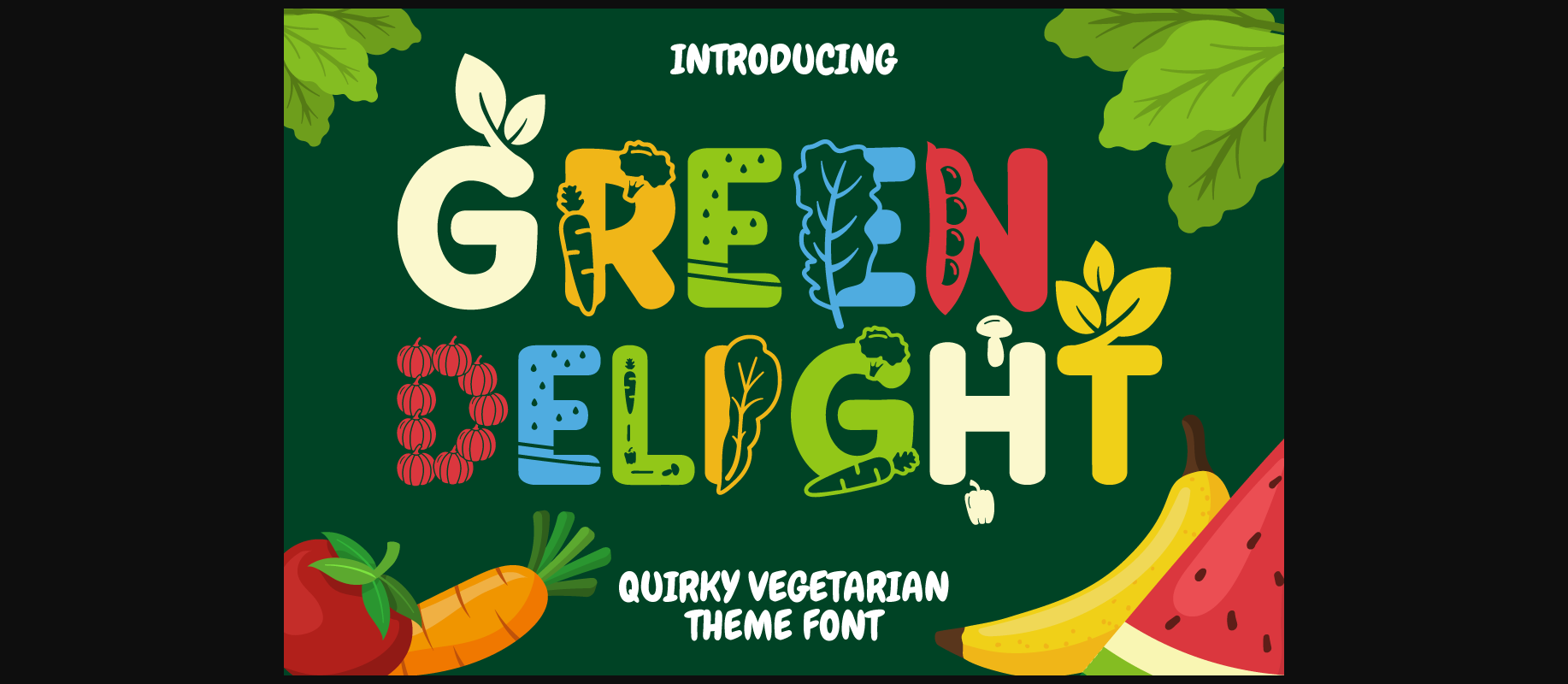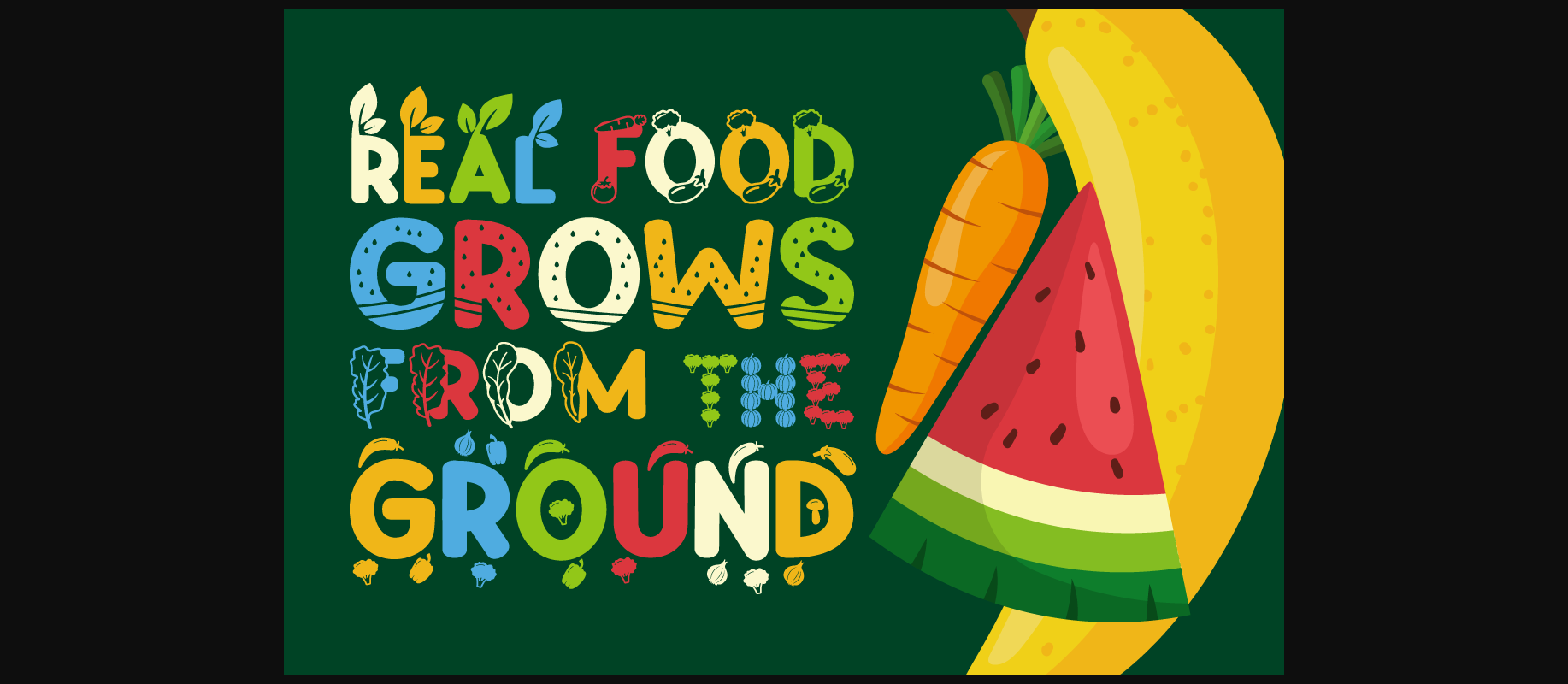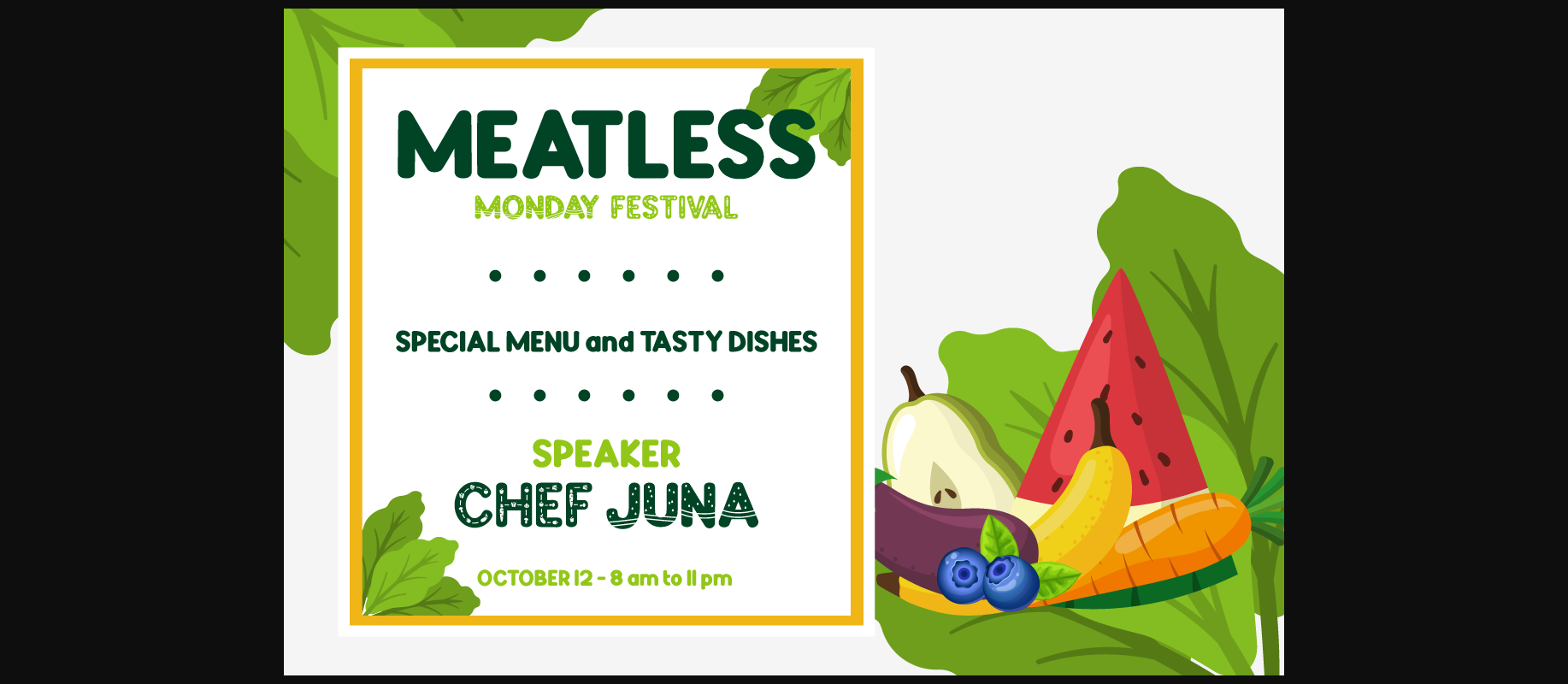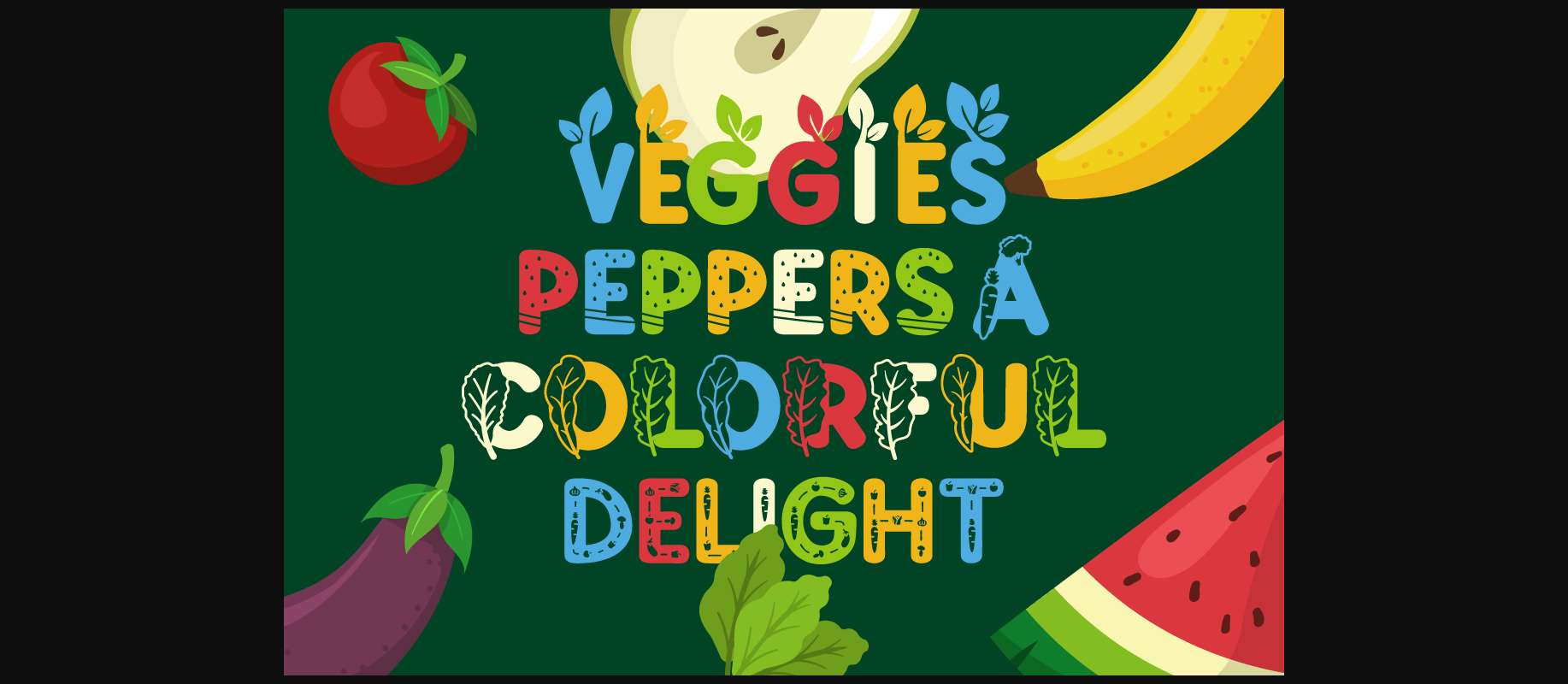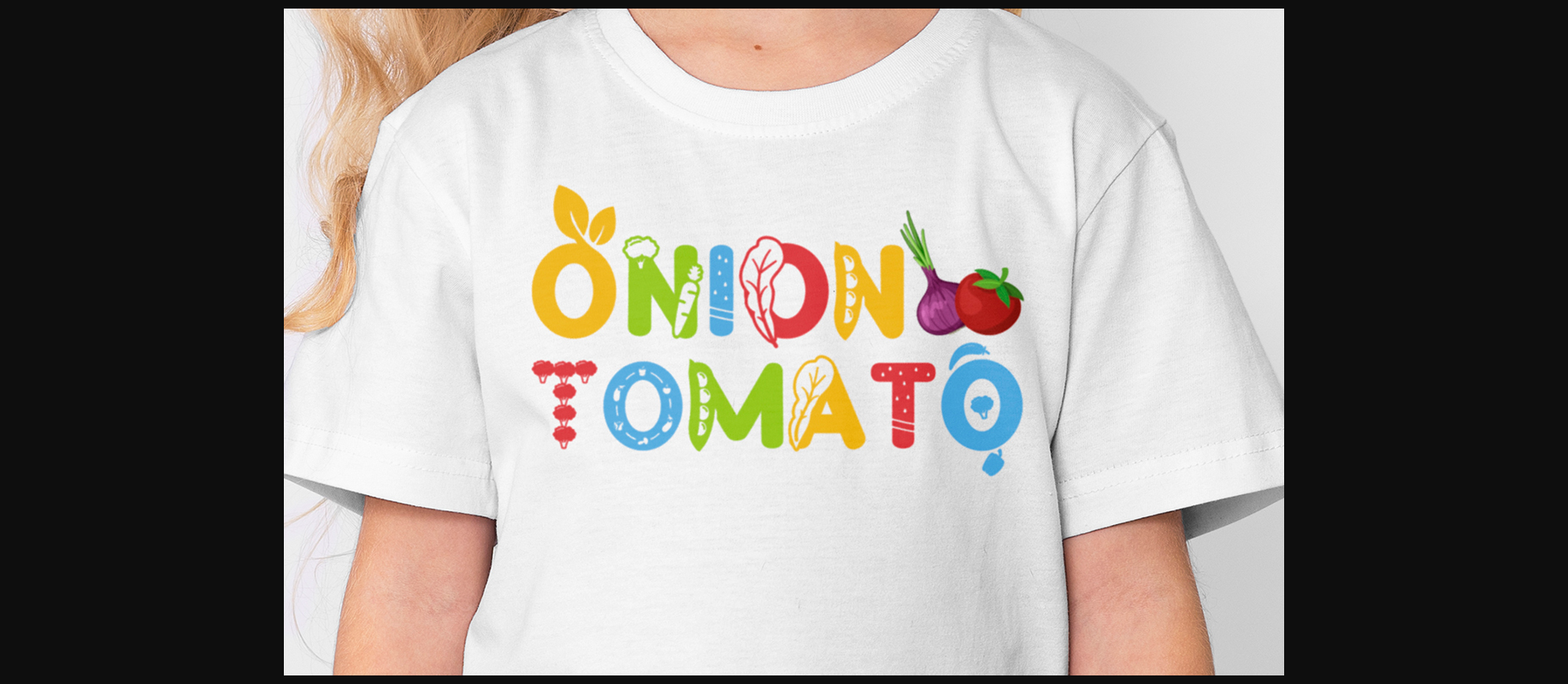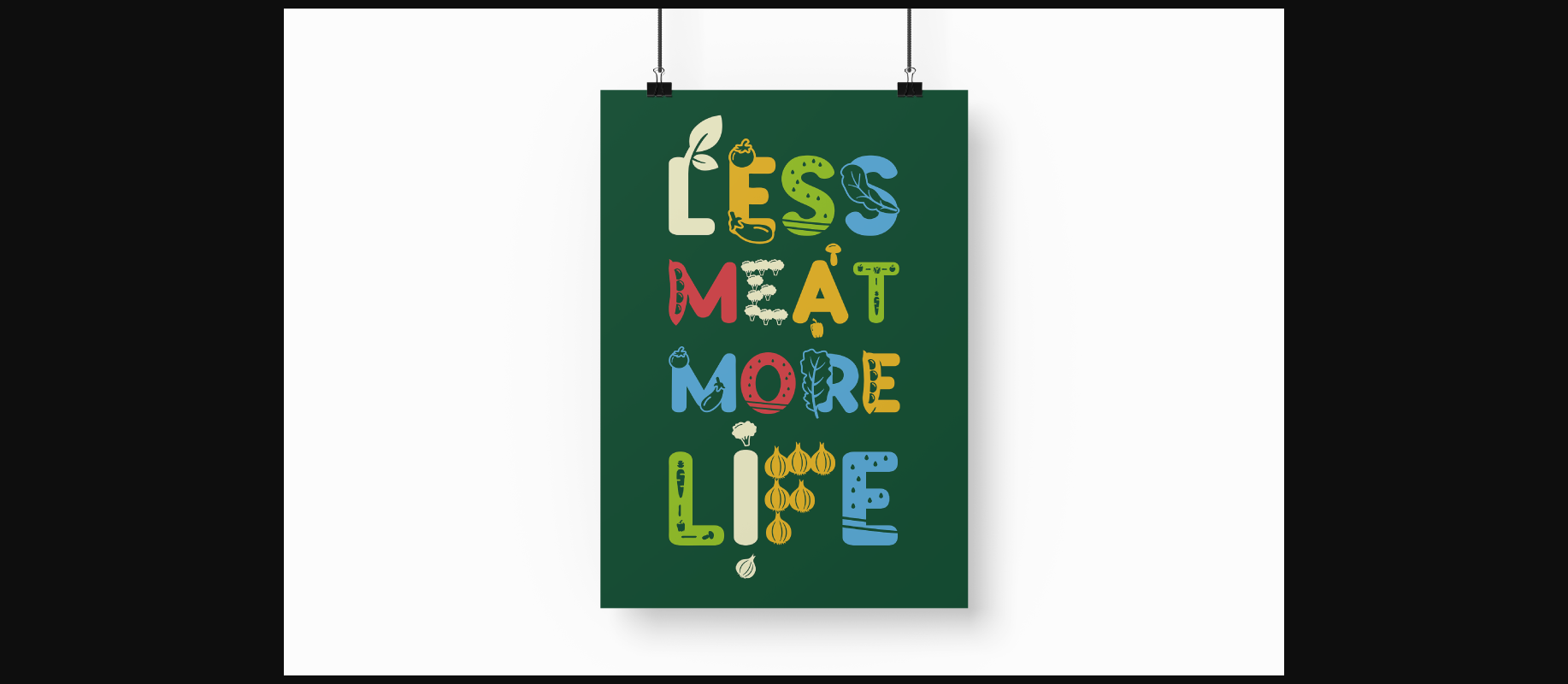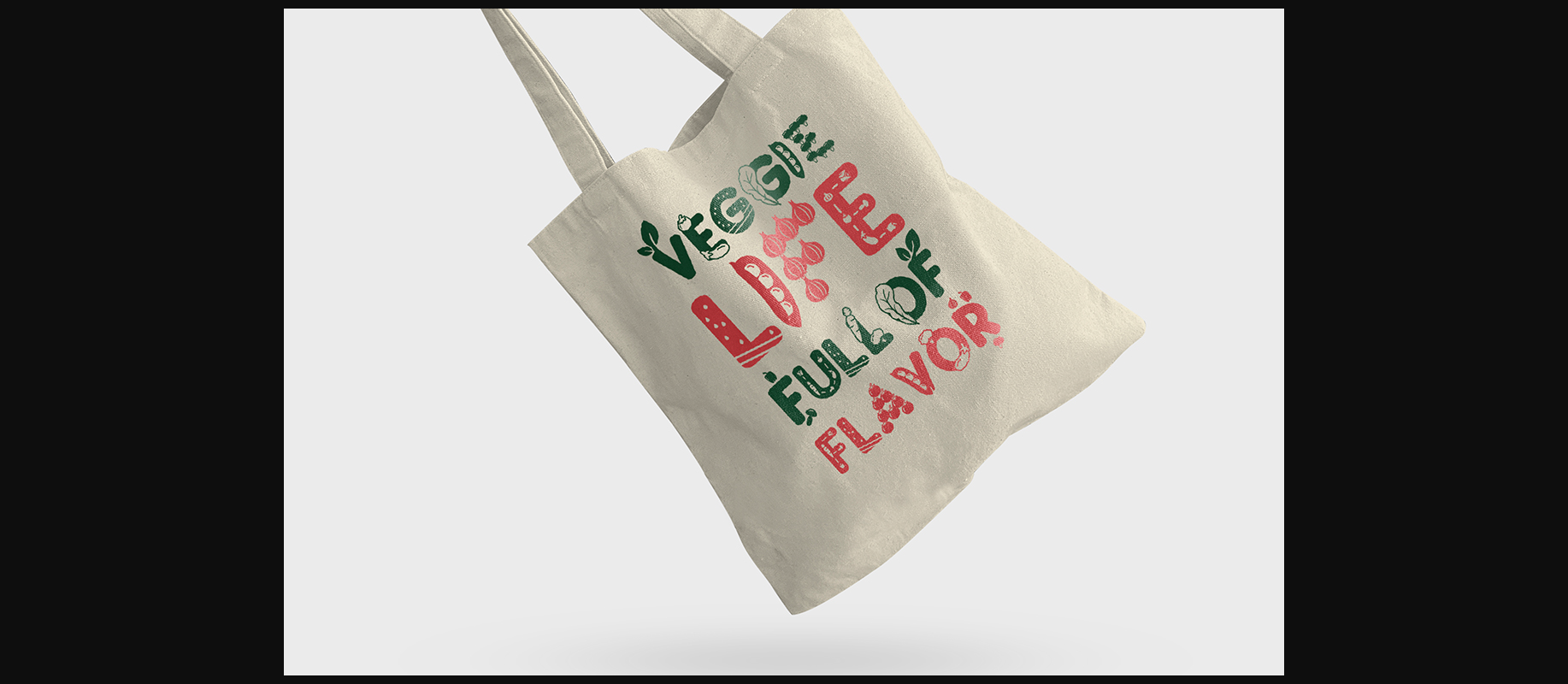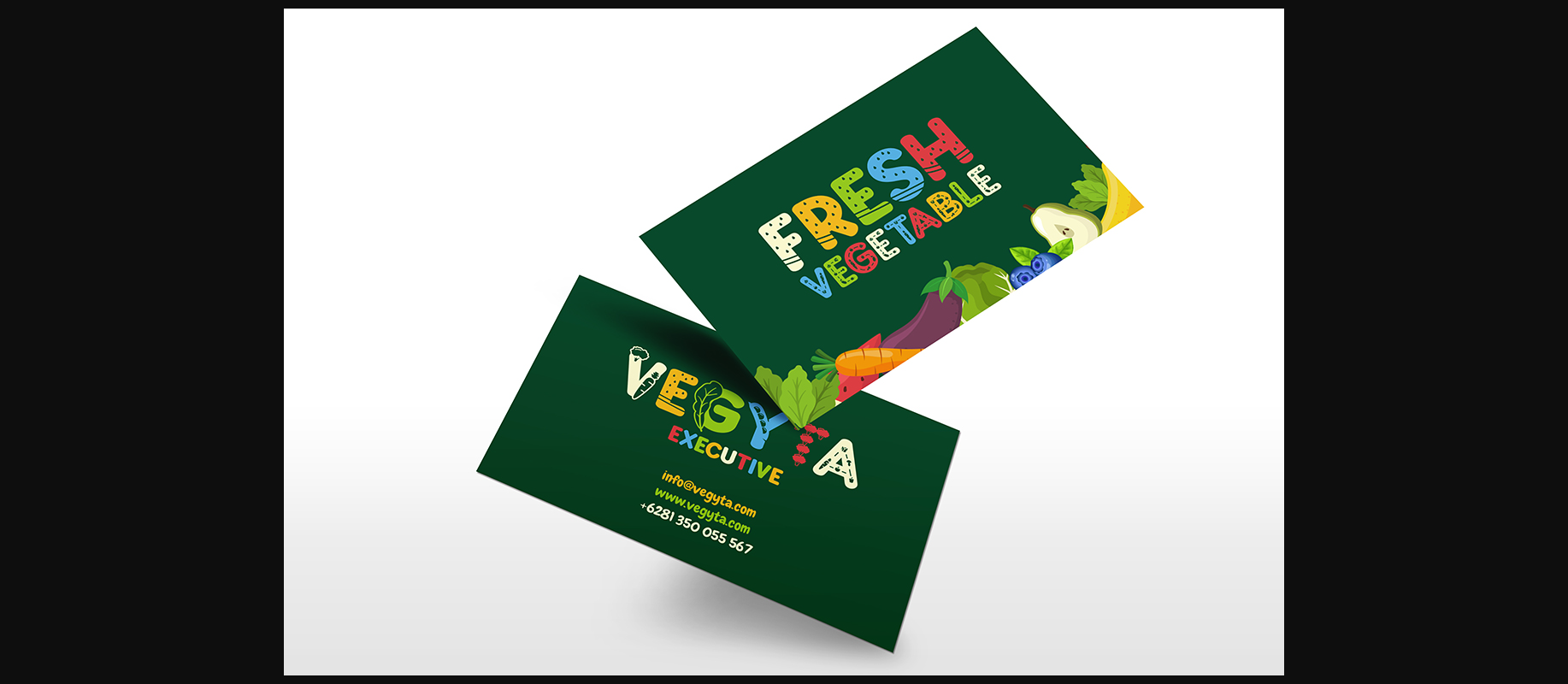
Green Delight Font
Introducing “Green Delight,” a quirky vegetarian-themed font that embodies the essence of freshness, health, and the vibrant world of fruits and vegetables. This display font, with its rounded edges and unique design, is crafted for those who are passionate about nature, wellness, and creativity. Each letter is infused with elements inspired by various greens – from leafy vegetables to succulent fruits – making it a perfect choice for projects related to children, crafting, or any fun and playful themes.
“Green Delight” comes in both OTF and TTF file formats and features nine distinct variations that align with its thematic design. Whether used individually or combined to create a dynamic visual experience, this font promises versatility and style. It’s not just a typeface but an artistic expression that brings the refreshing world of healthy greens to life.
Ideal for logos, branding initiatives aimed at children’s products or services, crafting projects, invitations cards – both for parties or formal gatherings – packaging designs that need an organic touch; posters that pop; titles in books especially those tailored towards young readers; business branding seeking a fresh look; greeting cards meant to bring warmth in every word; stickers that stick not just on surfaces but in hearts; children’s books aiming to educate while entertain; magazines looking for a refreshing typeface twist – “Green Delight” is your go-to option.